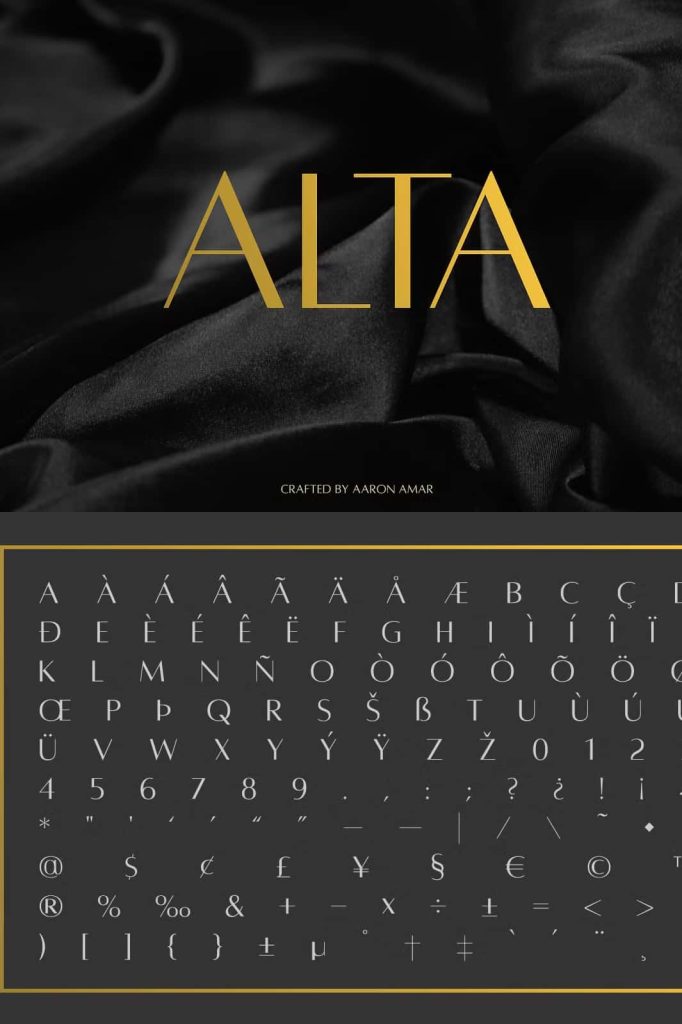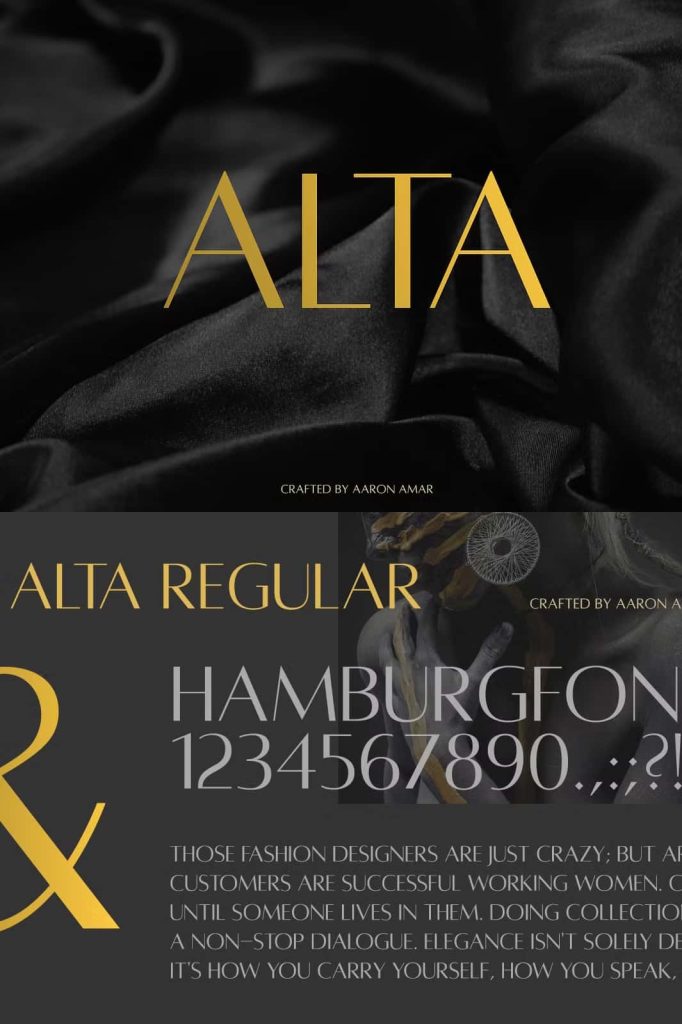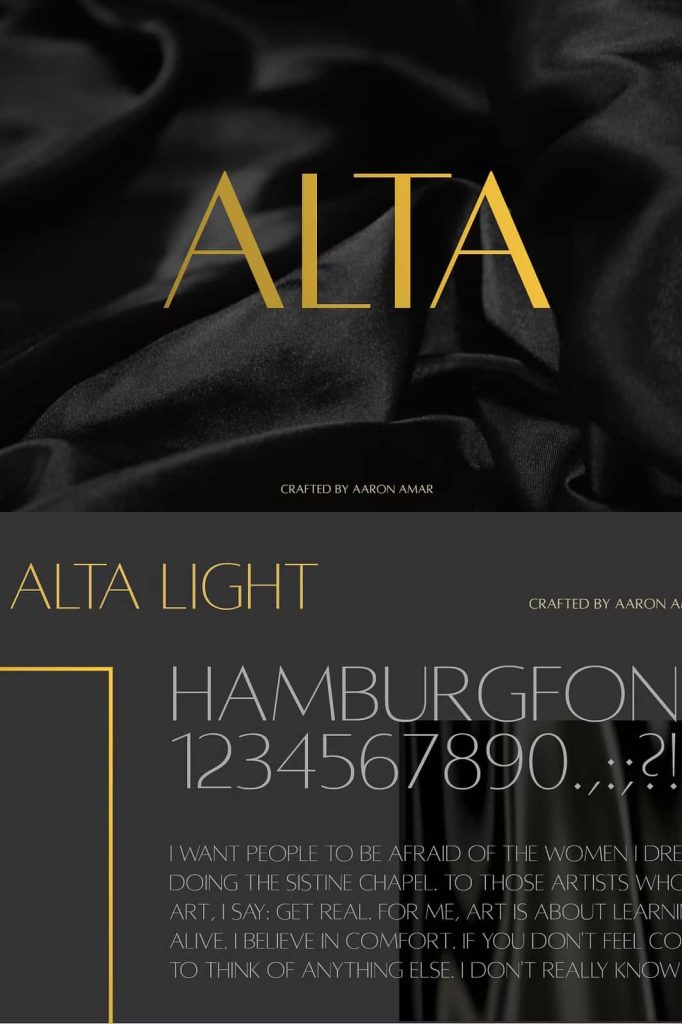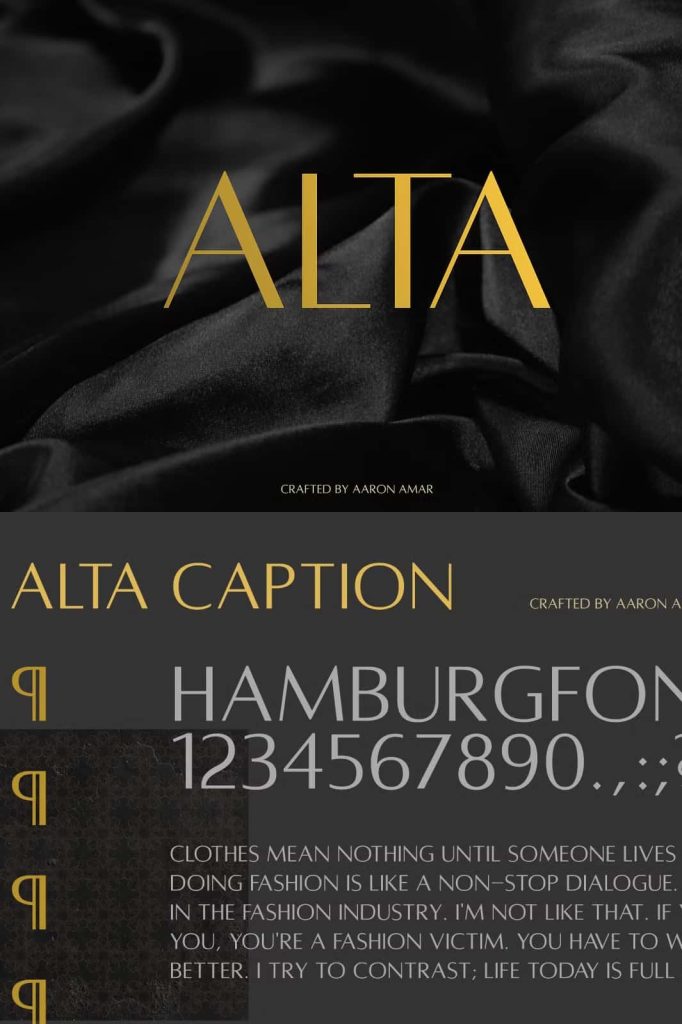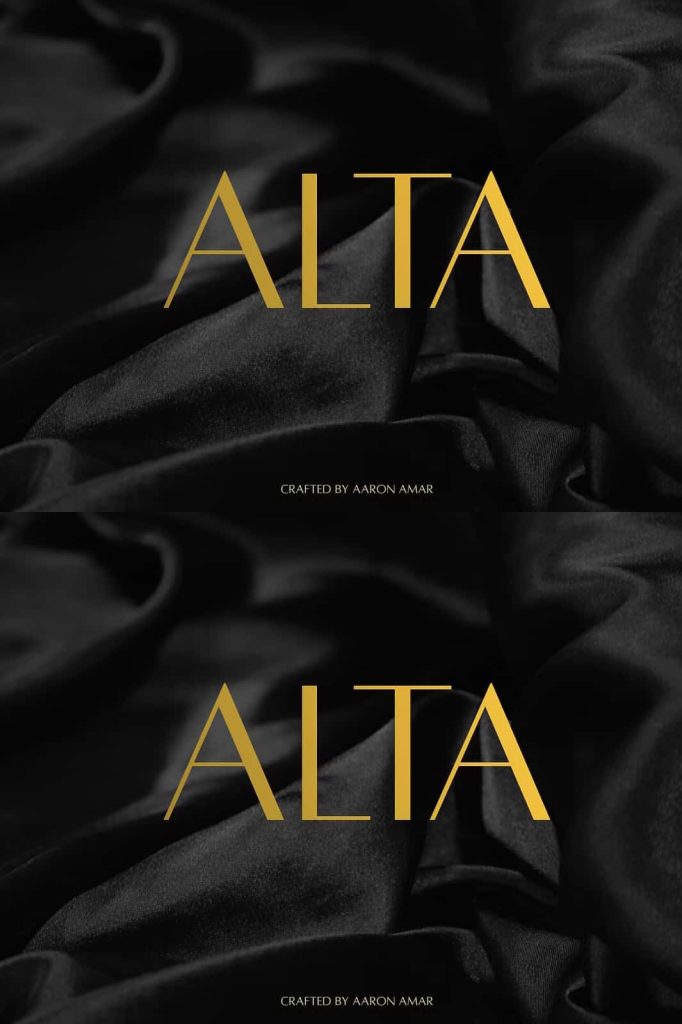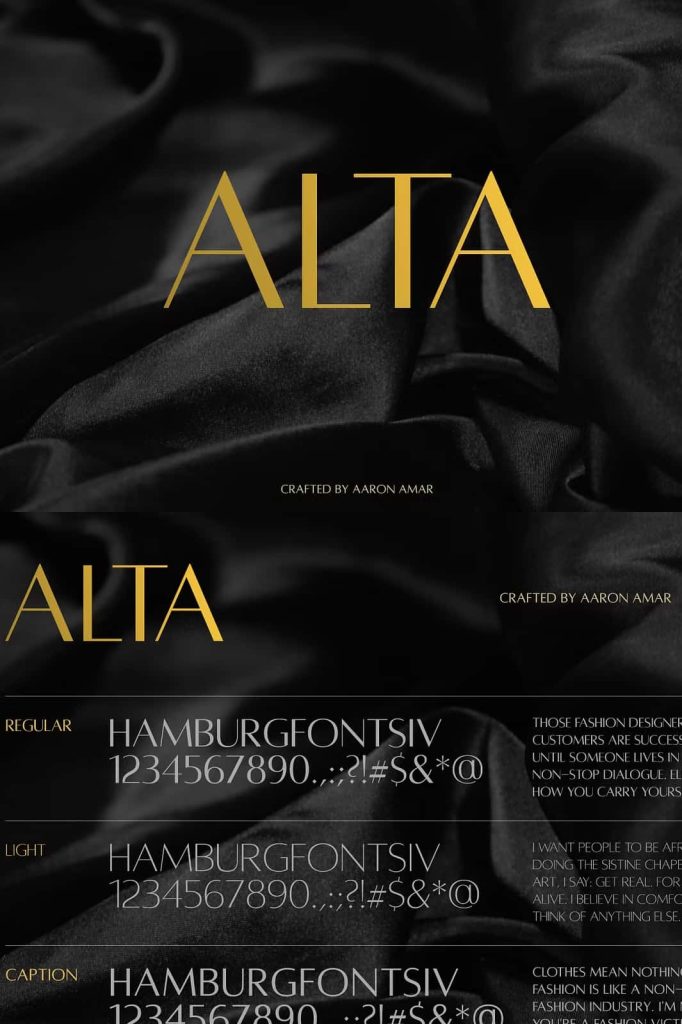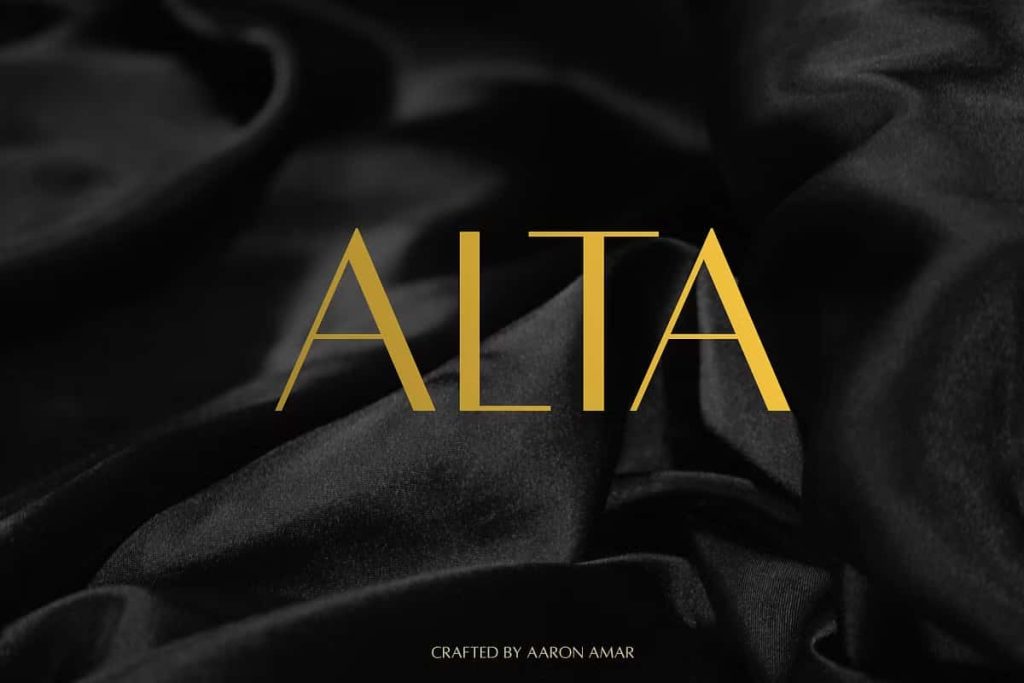
Alta Typeface – A Refined All Caps Sans Serif Display Font
Alta Typeface is a sophisticated all-caps sans serif display font designed to deliver clarity, elegance, and modern visual strength. This typeface draws inspiration from humanist typography and the timeless aesthetics of the classic Optima style. With its clean structure and graceful proportions, Alta Typeface offers a balanced design that works beautifully across many creative and professional projects.
Unlike traditional sans serif fonts that rely heavily on geometric construction, Alta Typeface embraces humanist design principles. The letters feature subtle stroke contrast, soft curves, and refined proportions that create a warm yet professional typographic personality. These details help the font maintain readability while delivering a distinctive display style.
Alta Typeface focuses on uppercase characters, making it especially powerful for titles, branding elements, and display typography. The all-caps construction ensures that every word appears structured, confident, and visually striking.
A Humanist Display Typeface Inspired by Classic Design
The design of Alta Typeface reflects the influence of humanist typography traditions. Humanist fonts often take inspiration from classical letterforms and calligraphic movement, which results in more natural and balanced shapes. Alta Typeface carries this tradition forward by blending modern minimalism with subtle organic character.
The inspiration behind Alta comes from the well-known aesthetic of Optima-style typography. That classic design introduced a unique concept by combining serif-like elegance with the simplicity of sans serif structure. Alta Typeface follows this same spirit by presenting letters that feel refined, open, and visually harmonious.
The result is a display font that feels both modern and timeless. Designers can use Alta Typeface in projects that require elegance without relying on traditional serif forms.
All Caps Typography That Creates Strong Visual Impact
Alta Typeface uses an all-caps structure to deliver powerful and confident typography. Uppercase lettering naturally creates stronger visual presence, especially when used in headlines, branding, and large display text. The consistent height and structure of the characters allow text to appear organized and balanced across layouts.
This design approach works particularly well for projects that demand clear visual hierarchy. When placed in headlines or titles, Alta Typeface immediately draws attention while maintaining a refined and professional appearance.
The all-caps format also helps designers create structured compositions. It gives typography a sense of order and precision that complements both minimalist and editorial design styles.
Ideal Design Applications
- Logo and brand identity design
- Editorial headlines and magazine titles
- Luxury branding projects
- Poster and advertising design
- Website hero typography
- Packaging and product labels
- Corporate identity materials
- Minimalist graphic design layouts
Perfect for Branding and Professional Design
Alta Typeface works exceptionally well in branding projects where designers need typography that communicates elegance and professionalism. The clean letterforms create a strong foundation for logos and brand marks. Because the font avoids excessive decoration, it allows the brand message to remain clear and confident.
Many luxury brands prefer typography that feels refined but not overly complex. Alta Typeface delivers this balance by combining minimal structure with subtle humanist character. The result is a font that feels sophisticated and timeless.
Designers can use Alta Typeface in brand guidelines, packaging, marketing materials, and corporate identity systems. The consistent uppercase design helps maintain a unified and recognizable visual identity.
Clean Typography for Editorial and Display Layouts
Editorial design requires fonts that can create clear hierarchy and visual elegance. Alta Typeface excels in this environment thanks to its strong uppercase structure and balanced proportions. The font works beautifully in magazine mastheads, article titles, and feature headlines.
Because the letters include subtle contrast and refined curves, the font feels more expressive than purely geometric sans serif typefaces. This added personality helps editorial layouts feel more sophisticated while still maintaining clarity.
Designers can pair Alta Typeface with complementary serif or sans serif fonts for body text, creating elegant typographic systems that guide readers through the content smoothly.
A Modern Typeface with Timeless Appeal
Alta Typeface proves that simple typography can still deliver strong visual character. The font achieves elegance through proportion, spacing, and subtle stroke variation rather than decorative details. This minimalist approach allows the typeface to remain relevant across changing design trends.
Designers often look for fonts that can adapt to many different projects without losing their identity. Alta Typeface meets this need by offering a versatile display style that works in branding, editorial design, advertising, and digital media.
Its inspiration from classic typographic aesthetics ensures that the font carries a sense of history while still feeling fresh and modern.
Elevate Your Display Typography with Alta Typeface
Alta Typeface is a powerful choice for designers who want to create elegant and confident typography. The combination of all-caps structure, humanist influence, and minimalist design gives the font a distinctive voice in modern graphic design.
Whether you are designing a brand identity, crafting editorial headlines, or creating striking poster layouts, Alta Typeface provides the clarity and sophistication needed to elevate your work. Its timeless design ensures that your typography will remain stylish, professional, and visually compelling across many creative projects.